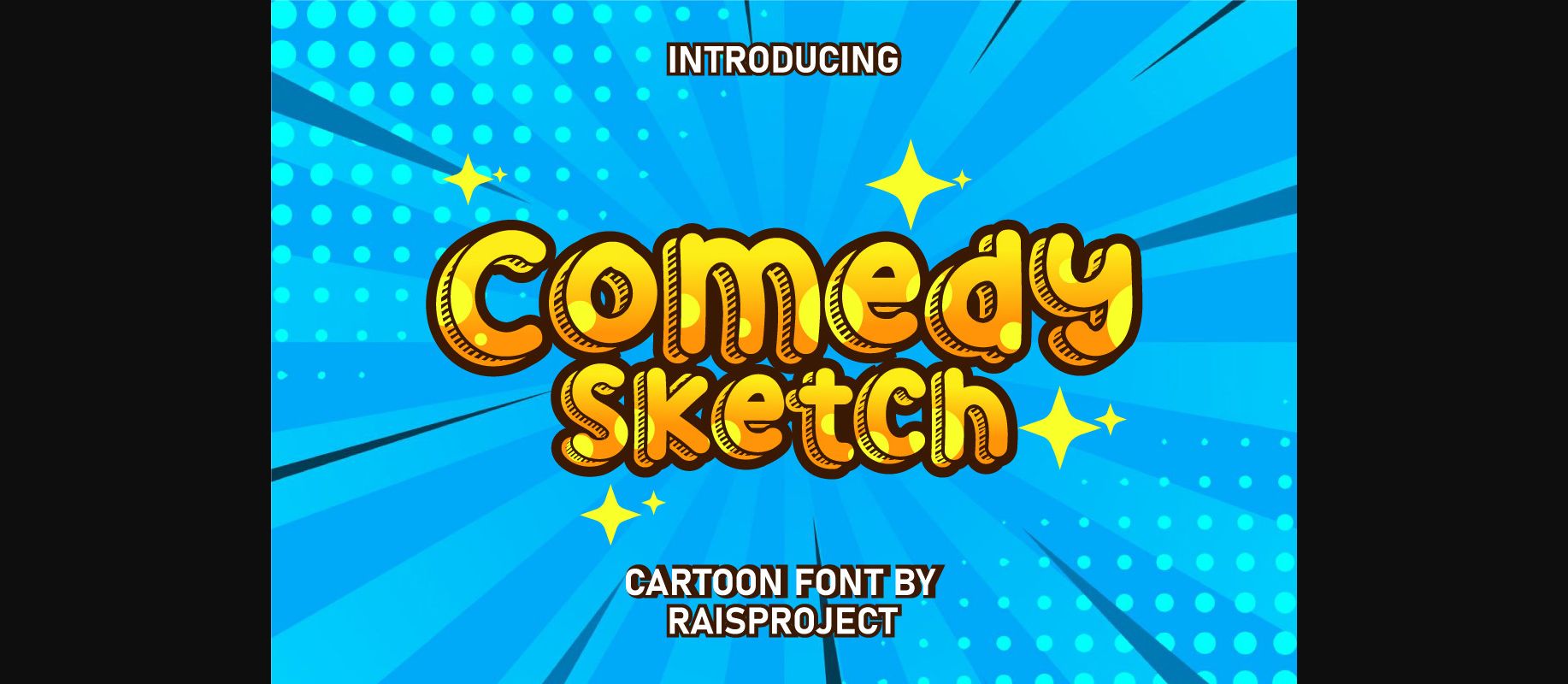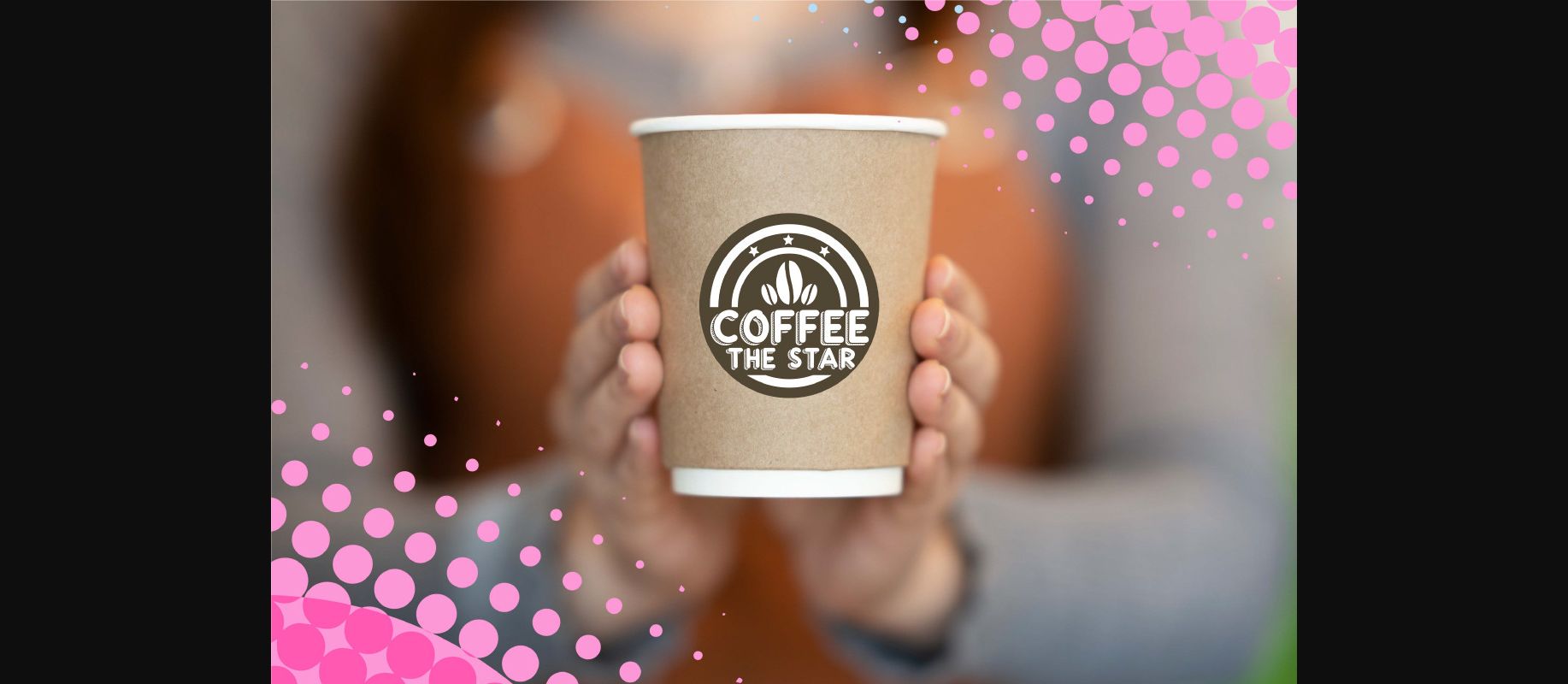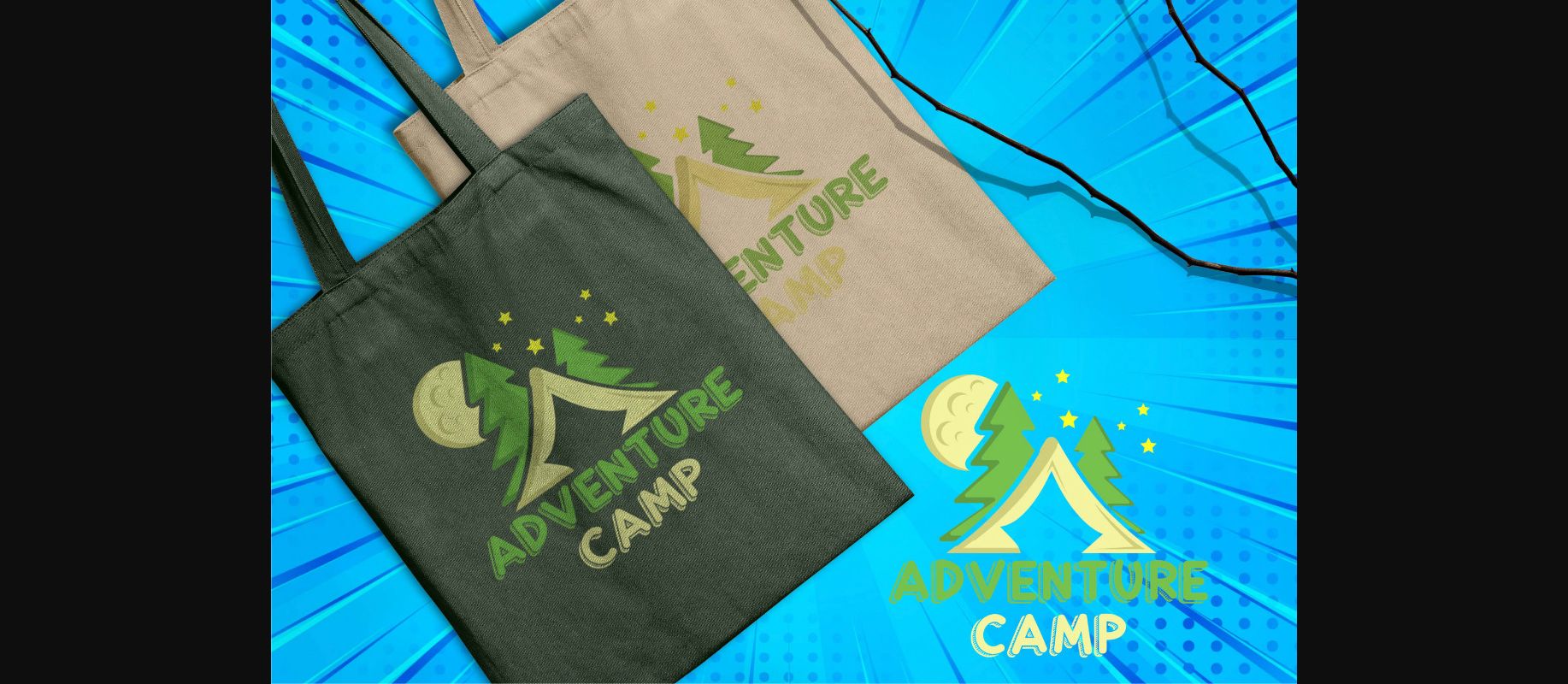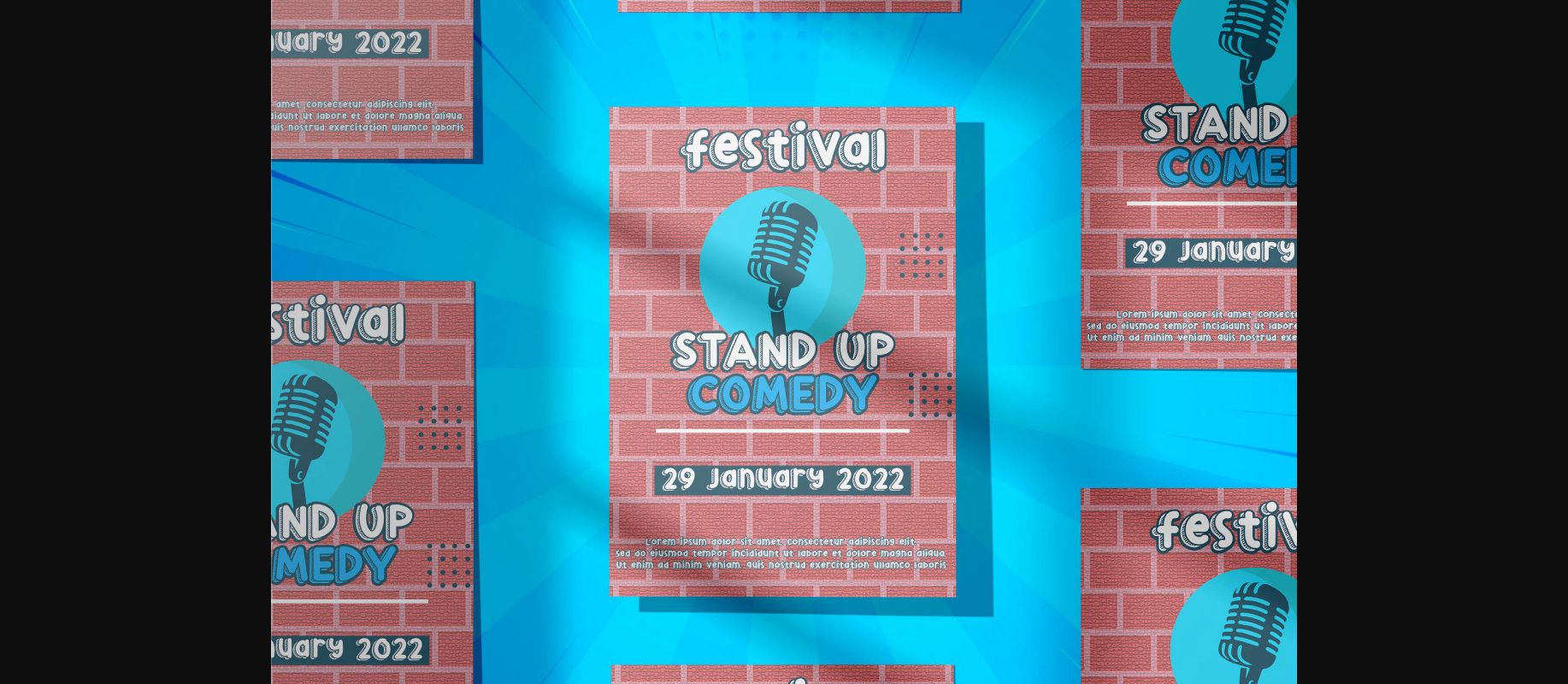
About Comedy Sketch Font
Comedy Sketch is inspired by cartoons and comics, with exaggerated letterforms that are bold and playful. The letters are rounded and bubbly, creating a friendly and approachable vibe. Itβs perfect for designs that require a fun and lighthearted touch, like childrenβs books, posters, and advertisements. Itβs sure to bring a smile to anyoneβs face.